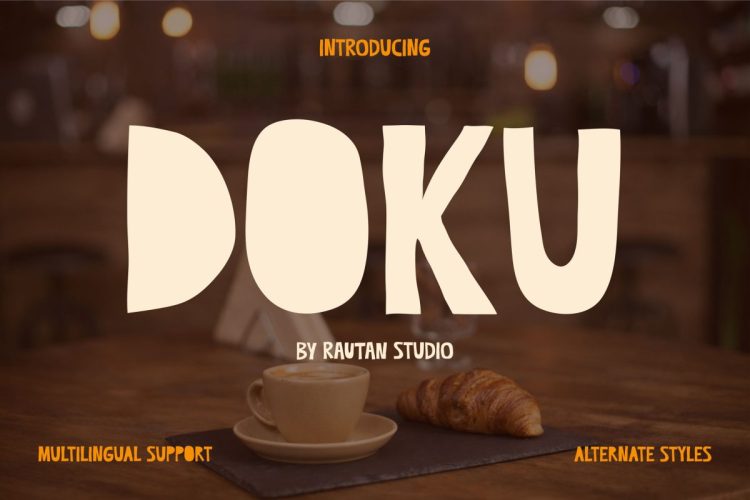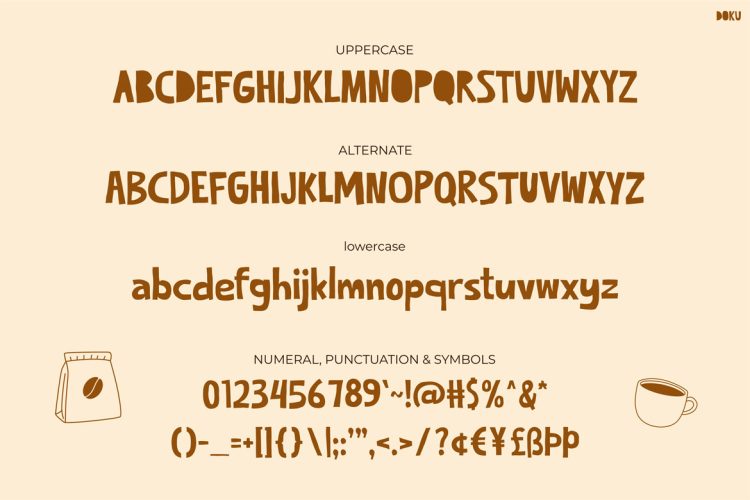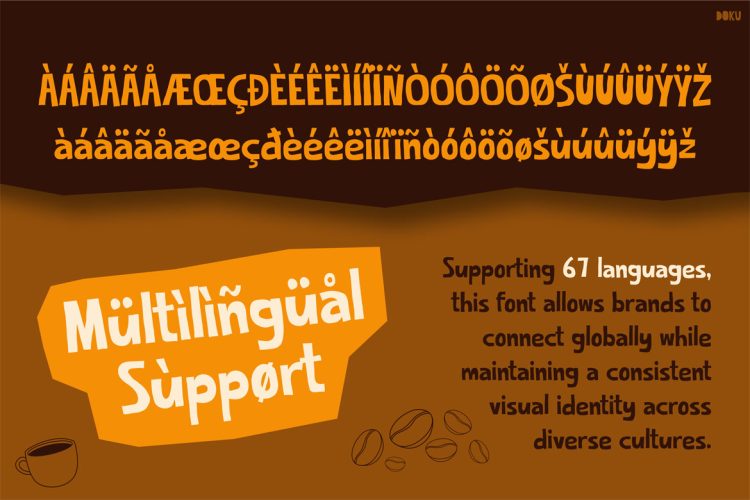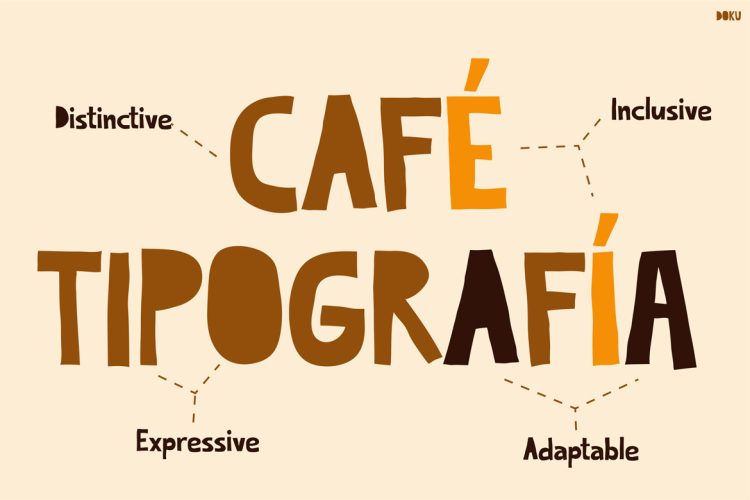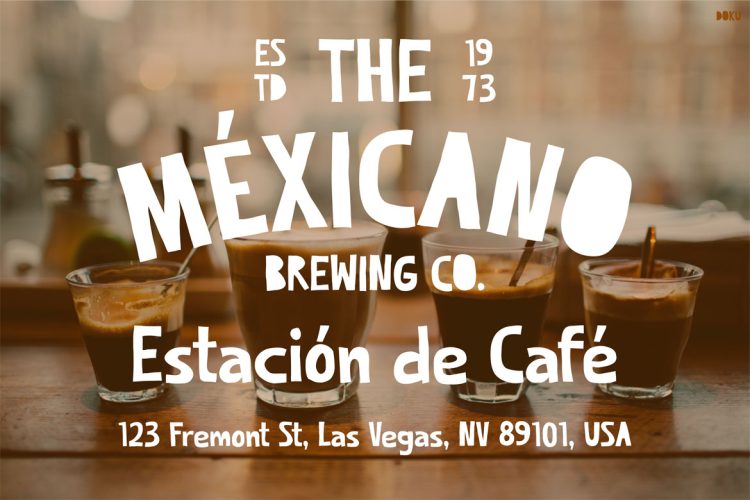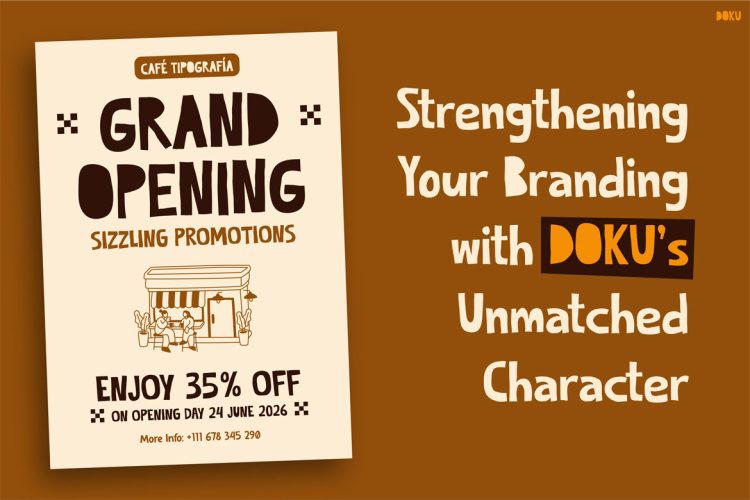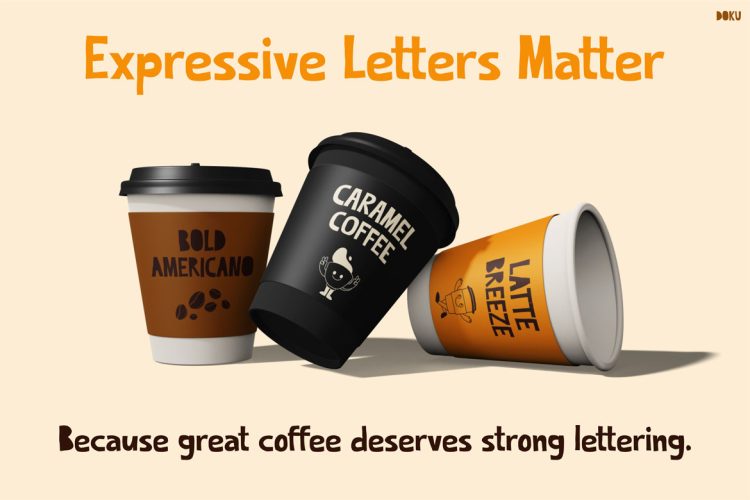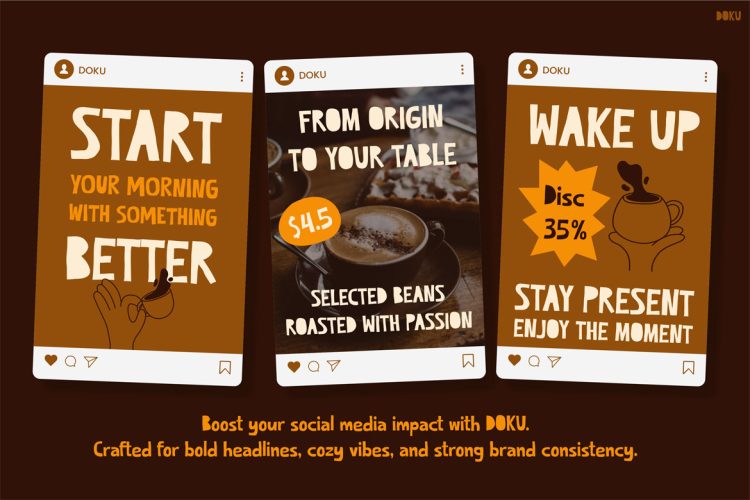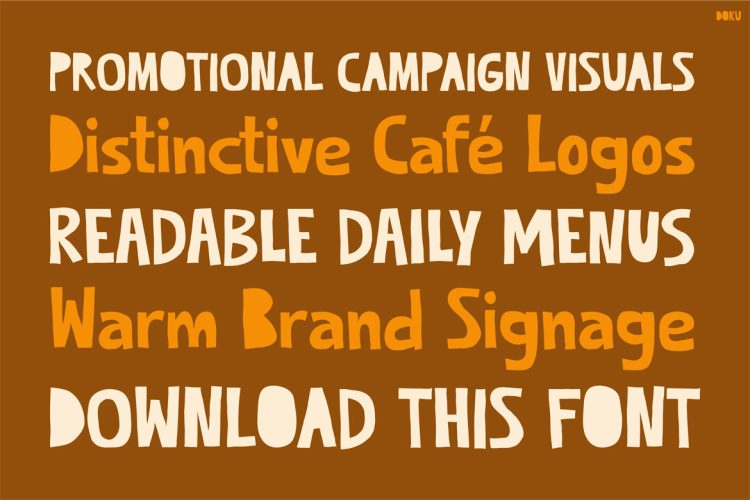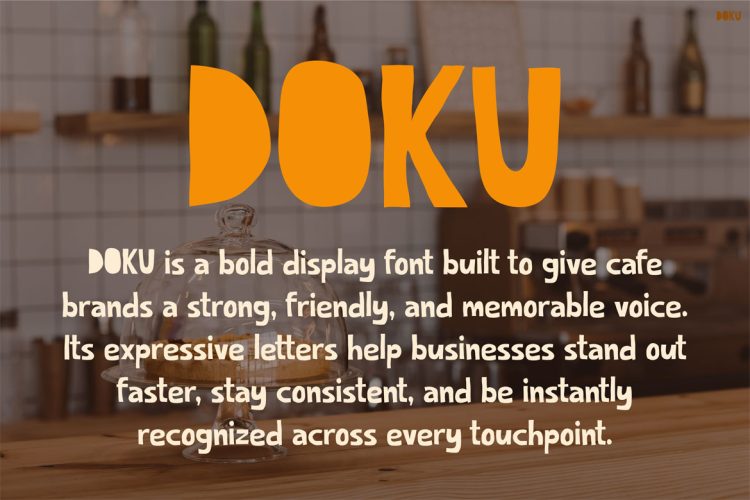
Instagram Font DOKU โ Warm Cafรฉ Display Typeface with Bold Personality
Instagram Font DOKU opens with a strong, inviting presence inspired by cafรฉ culture, handcrafted menus, and warm brand storytelling. From the first glance, this font feels bold yet friendly. Its rounded display forms, confident strokes, and soft edges create a welcoming visual tone that instantly connects with viewers. What makes Instagram Font DOKU unique is its balance between expressive character and practical readability. Each letter feels handmade and human, yet remains clean and structured for daily use. As a result, the font works beautifully for visual branding, especially where warmth, authenticity, and clarity matter. Moreover, its distinctive letterforms help messages stand out on busy Instagram feeds, menus, posters, and promotional graphics. At the same time, DOKU supports multilingual characters, making it suitable for global audiences while keeping a consistent visual voice.
Instagram Font DOKU is a bold display typeface designed to strengthen brand identity through expressive lettering. Its aesthetic draws inspiration from cafรฉs, coffee cups, signage, and printed menus. Therefore, it delivers a cozy, artisan feel without sacrificing legibility. The font performs well at large sizes for headlines, logos, and promotional visuals. In addition, it stays readable at medium sizes for menus, packaging, and social media captions. Because of its strong shapes and warm tone, DOKU helps brands communicate personality quickly. Furthermore, the font adapts easily across digital and print media, allowing designers to maintain consistency across Instagram posts, posters, packaging, and storefront visuals.
Who Is It For?
Instagram Font DOKU is ideal for cafรฉ owners, coffee brands, and small businesses that want a bold yet friendly look. It also suits designers working on food branding, beverage packaging, restaurant menus, and promotional campaigns. Additionally, content creators, social media managers, and lifestyle brands can use DOKU to create eye-catching Instagram graphics. Educators and event organizers may also benefit from its clarity and charm for signage and announcements.
To conclude, Instagram Font DOKU is more than a typeface; it is a branding tool that adds warmth, confidence, and memorability to every design. If you want your visuals to feel handcrafted, welcoming, and instantly recognizable, DOKU is a smart investment. Download it today and let your message brew with character and impact.